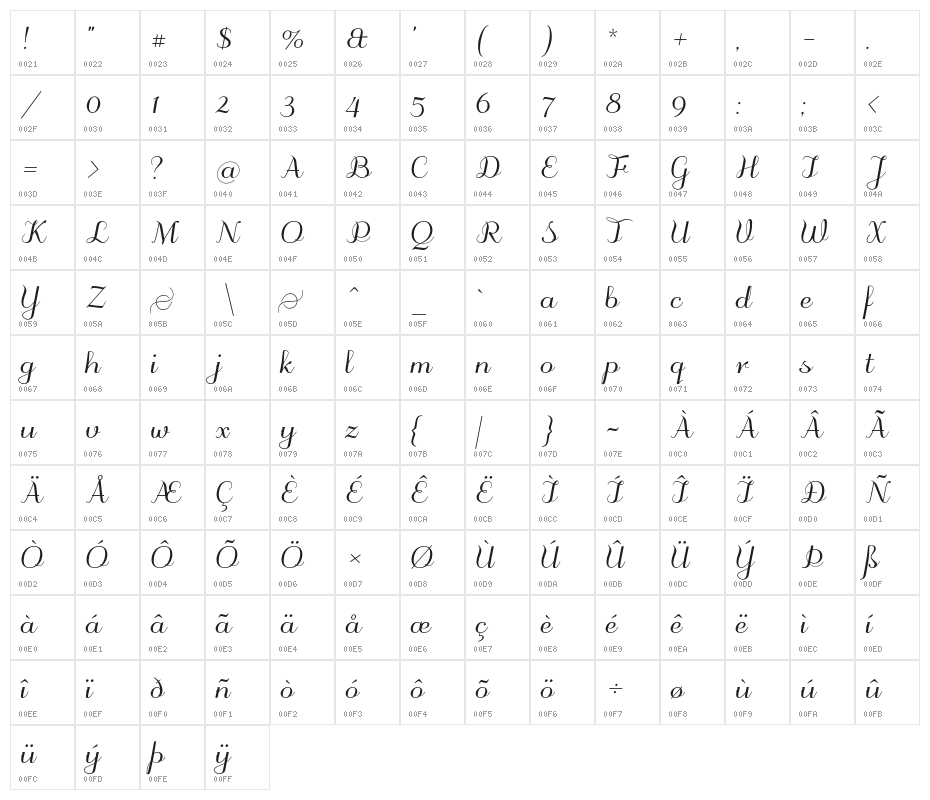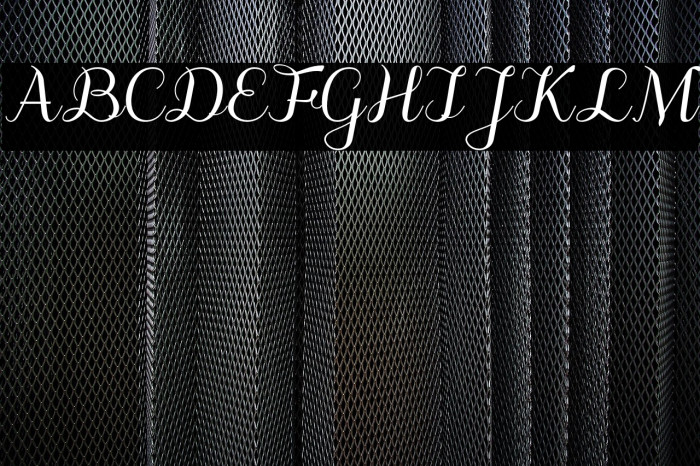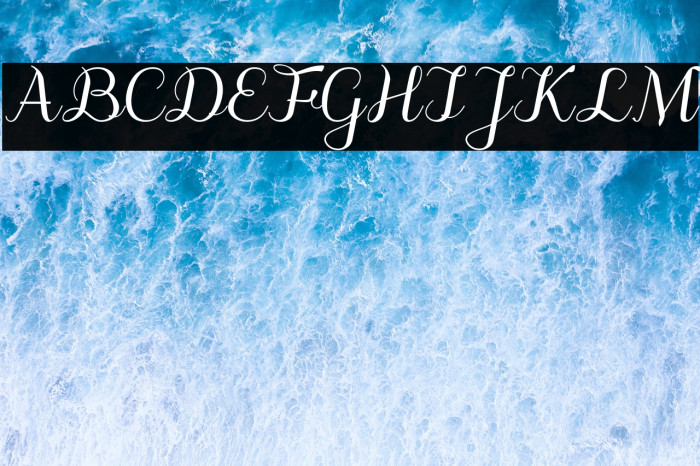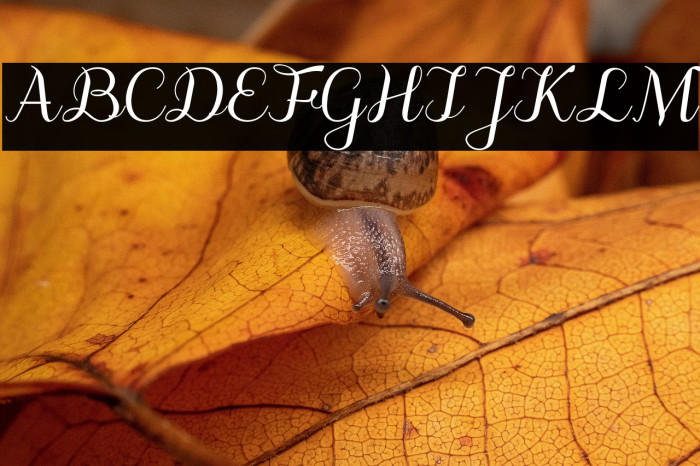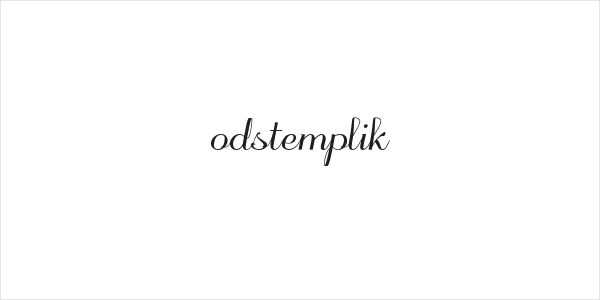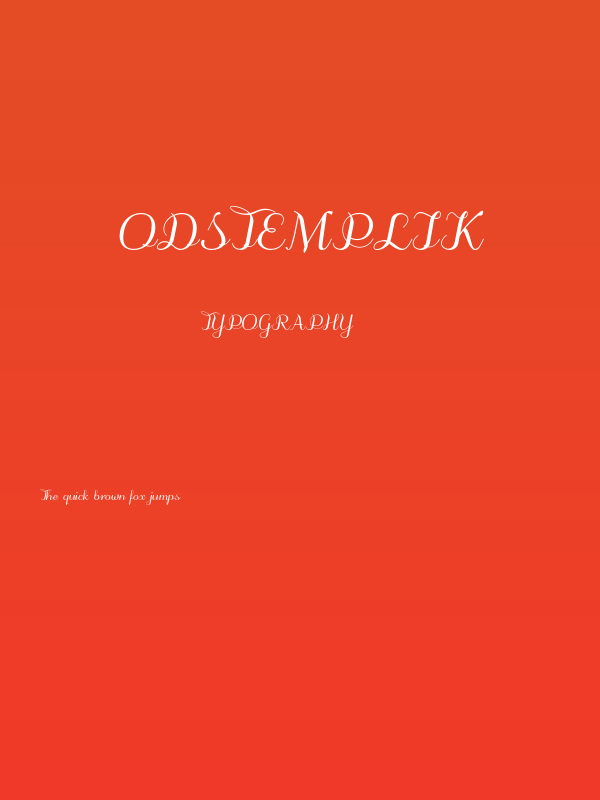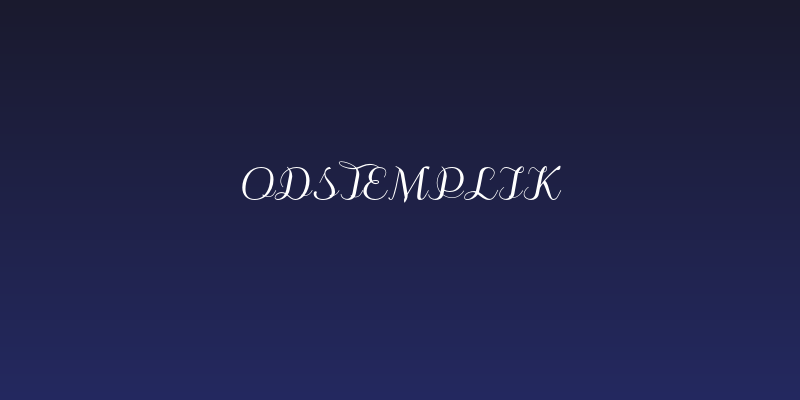
odstemplik Font
odstemplik Description
This elegant script font features flowing, cursive letters with a sophisticated and artistic flair. The uppercase letters are characterized by their sweeping curves and intricate loops, giving a sense of movement and grace. The lowercase letters maintain a consistent style, with smooth connections and a slightly slanted orientation. Numbers and special characters are designed to complement the overall aesthetic, maintaining the same fluidity and elegance. This font is perfect for projects that require a touch of class and refinement, such as wedding invitations, formal event programs, or luxury branding.
| Overall Style | Elegant, Artistic |
| Use Case | Headlines, Invitations, Branding |
| Proposed Projects | Ideal for wedding invitations, formal event programs, luxury branding, and elegant stationery. |